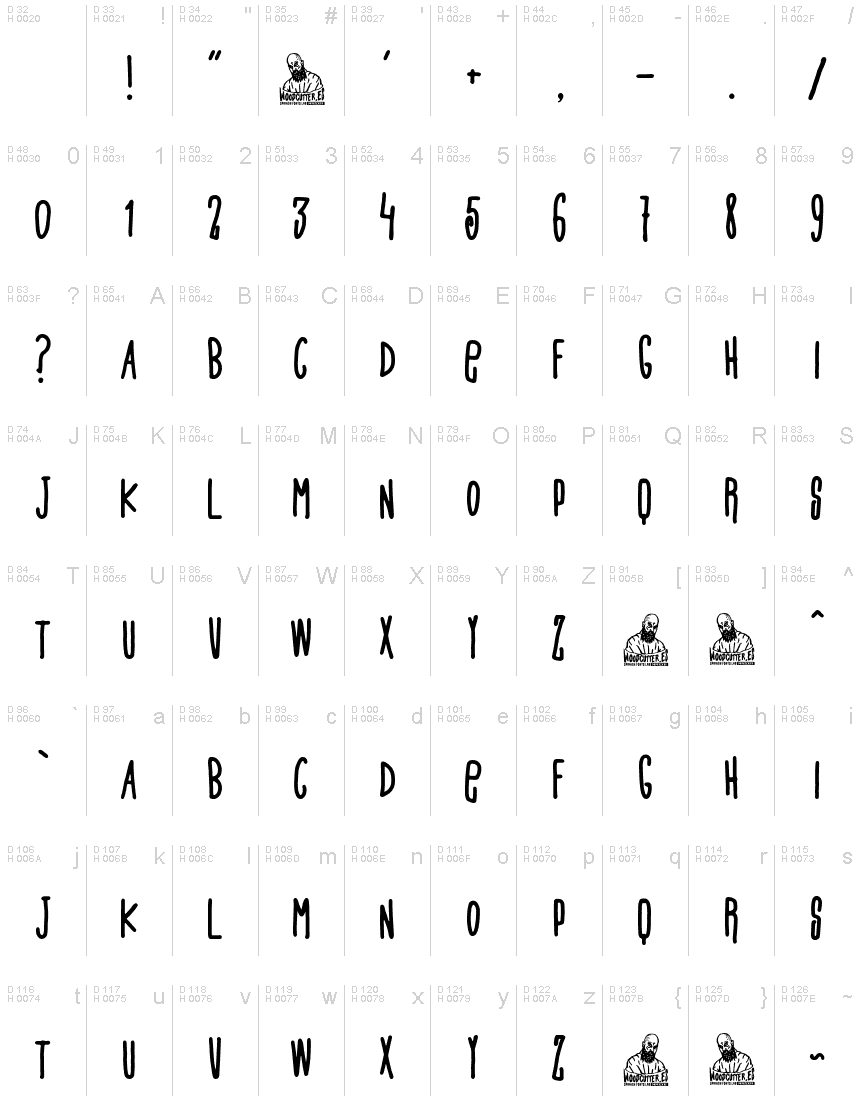
Funny Maid Corporation
Meet Funny Maid Corporation, a delightful display font by Woodcutter. With its charming cartoon style and semi-light weight, this font adds a playful touch to any project.
Its condensed width makes it perfect for bold headlines, eye-catching logos, and creative packaging designs. Give your children's books a whimsical flair or bring life to your game characters with this versatile typeface. Whether you're designing a quirky website or crafting fun social media posts, Funny Maid Corporation is your go-to font for all things imaginative and cheerful.
Funny Maid Corporation.